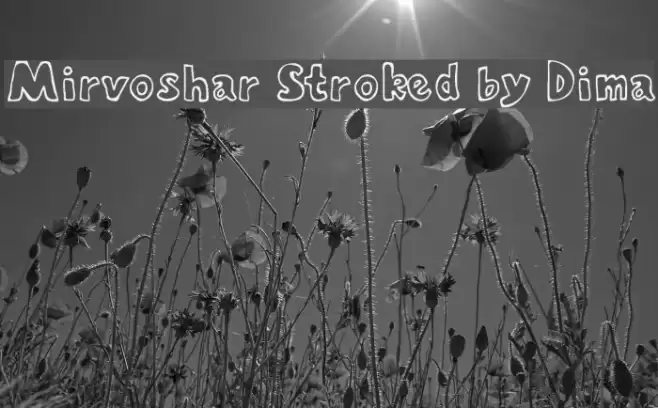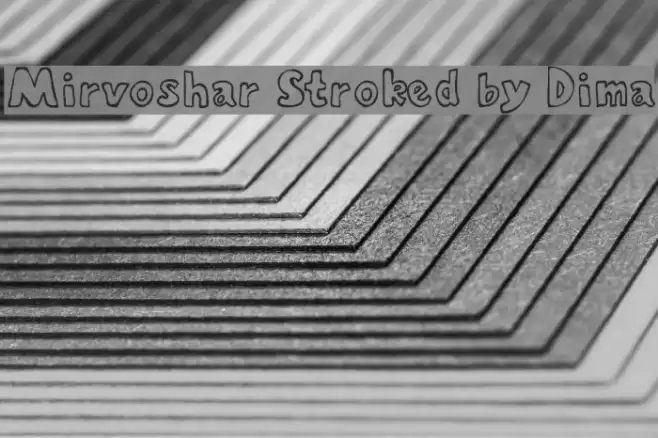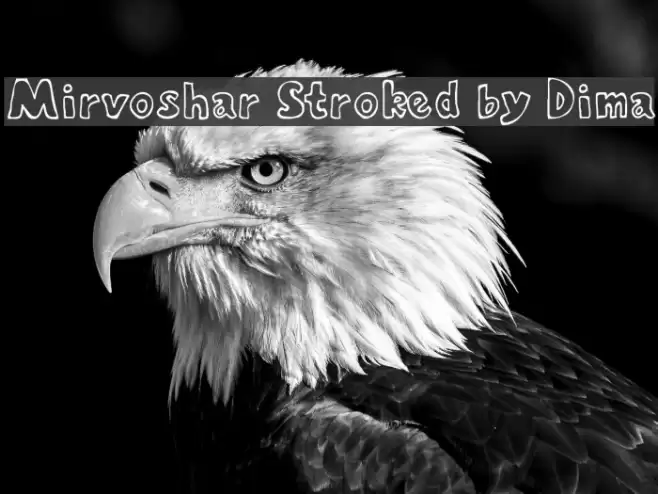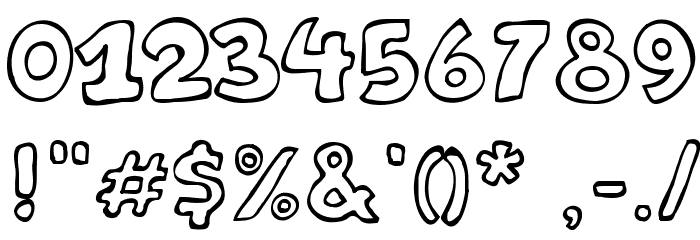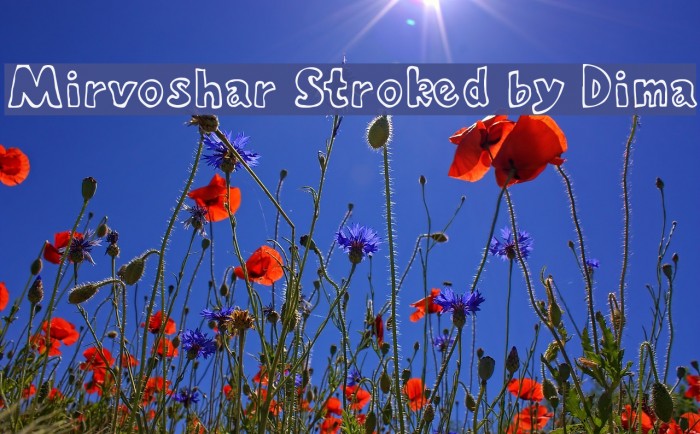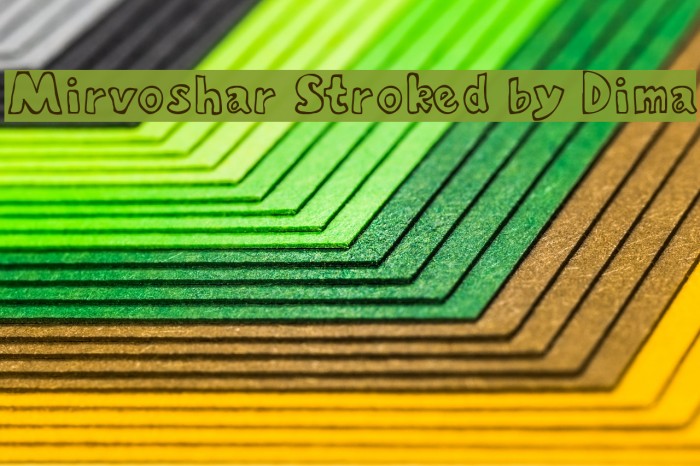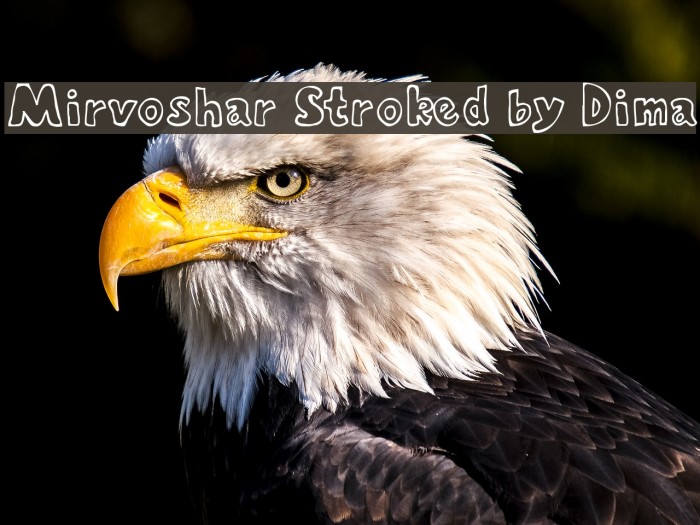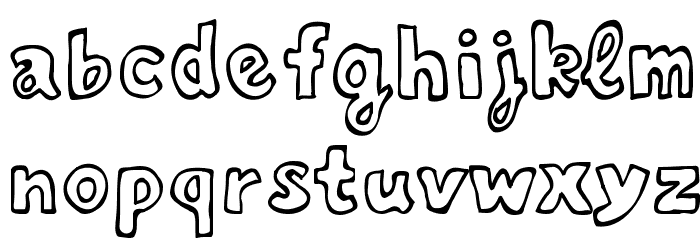
Mirvoshar Stroked by Dima Font
Mirvoshar Stroked by Dima Description
This playful and bold font features a unique hand-drawn style with a distinct outline around each character, giving it a lively and dynamic appearance. The uppercase and lowercase letters maintain a consistent, rounded form, while the numbers and special characters follow the same whimsical design. The font's thick strokes and outlined style make it highly legible and eye-catching, suitable for various creative projects. Its informal and fun aesthetic is perfect for designs that aim to convey a sense of joy and creativity.
A playful, outlined font with a hand-drawn, whimsical style from Cartoon fonts.
- Proposed Projects: Ideal for children's books, playful branding, party invitations, and creative posters.
- Overall Style: Playful, Creative